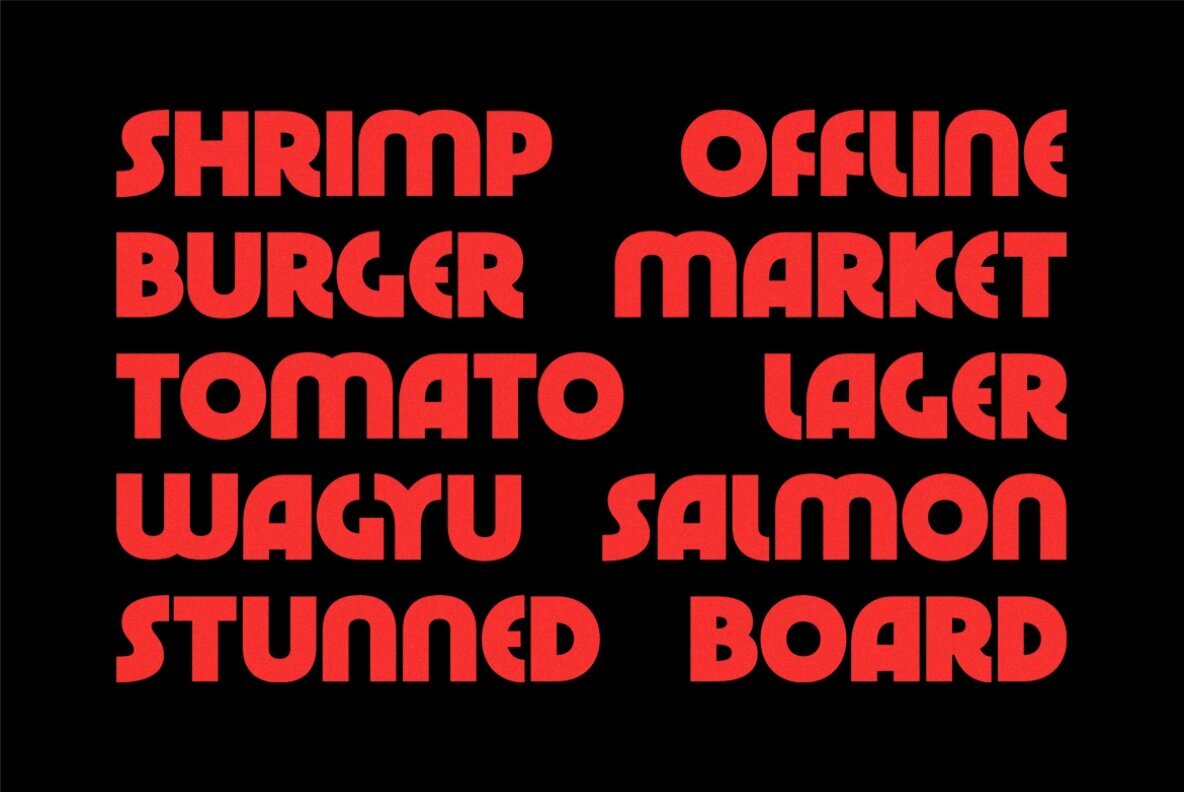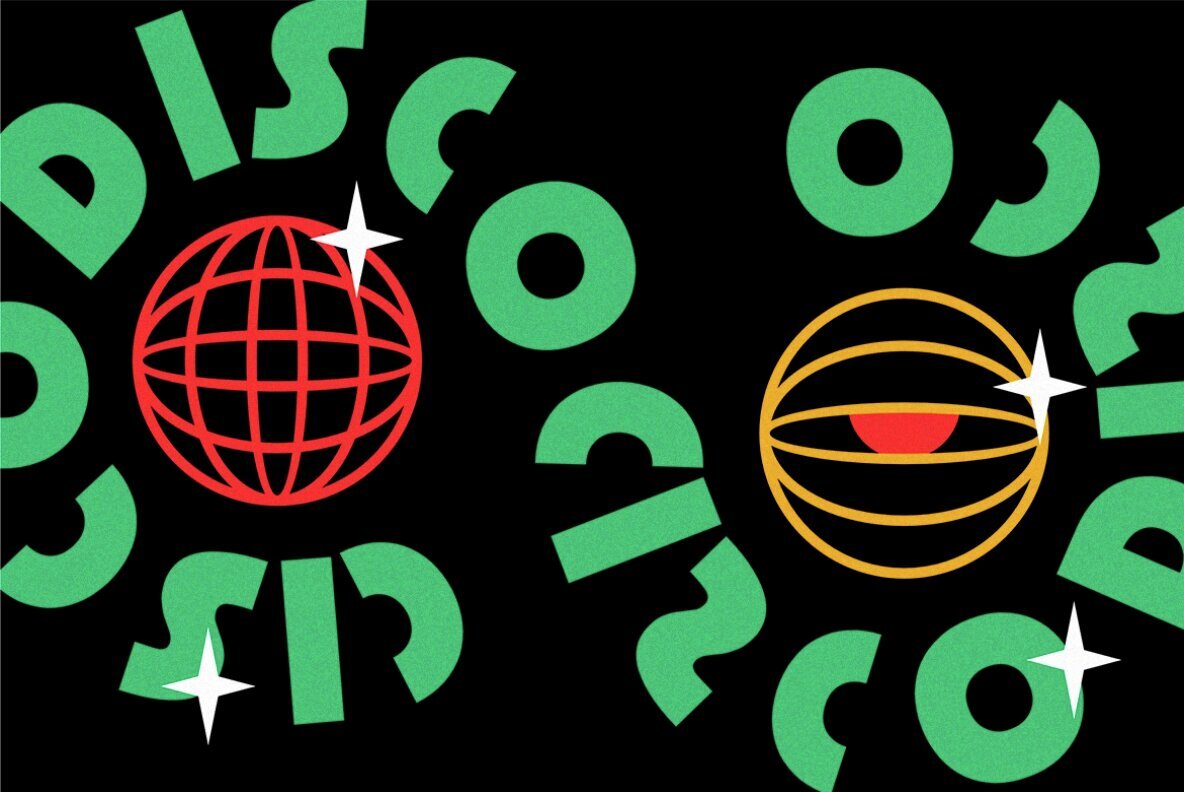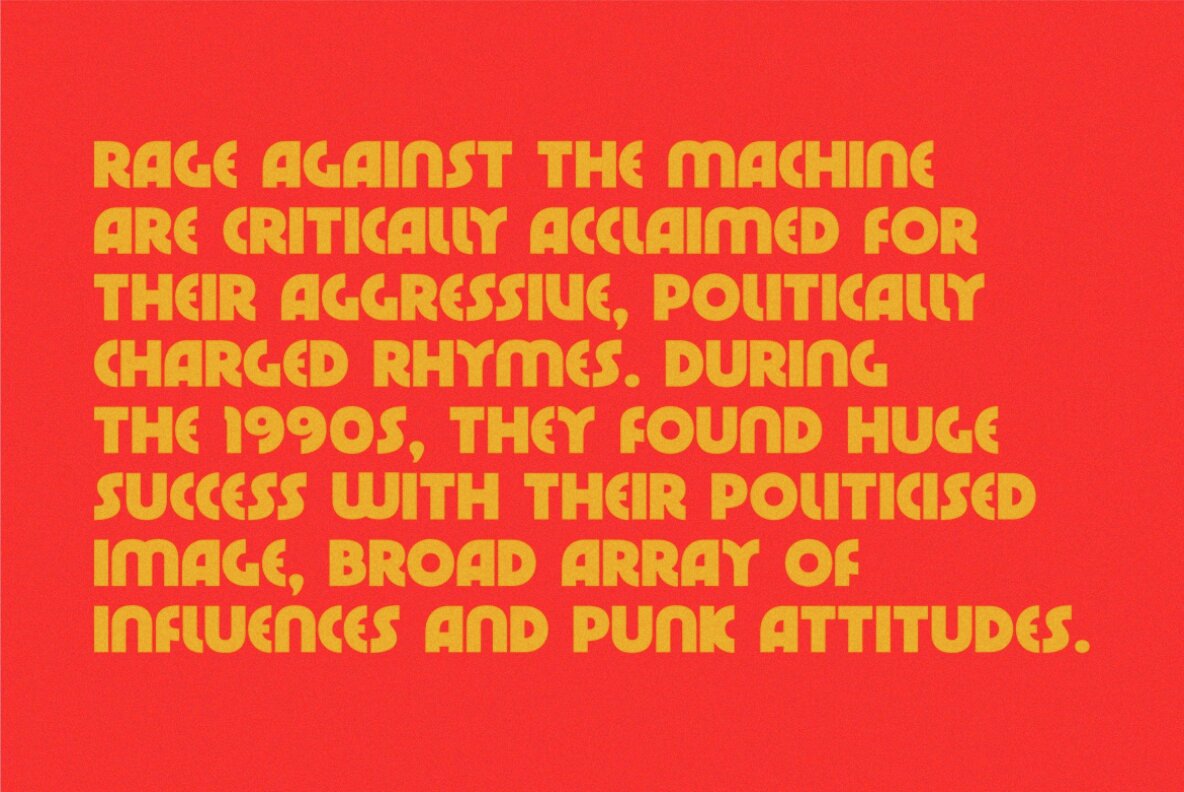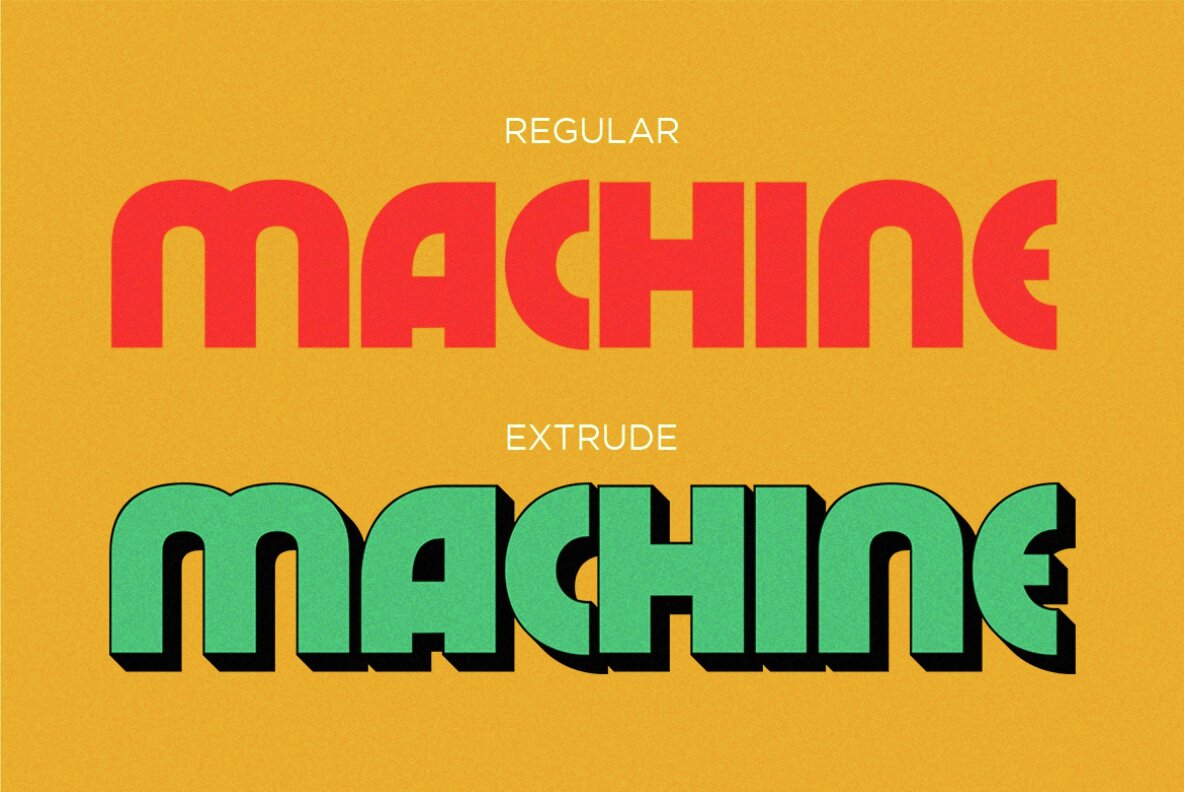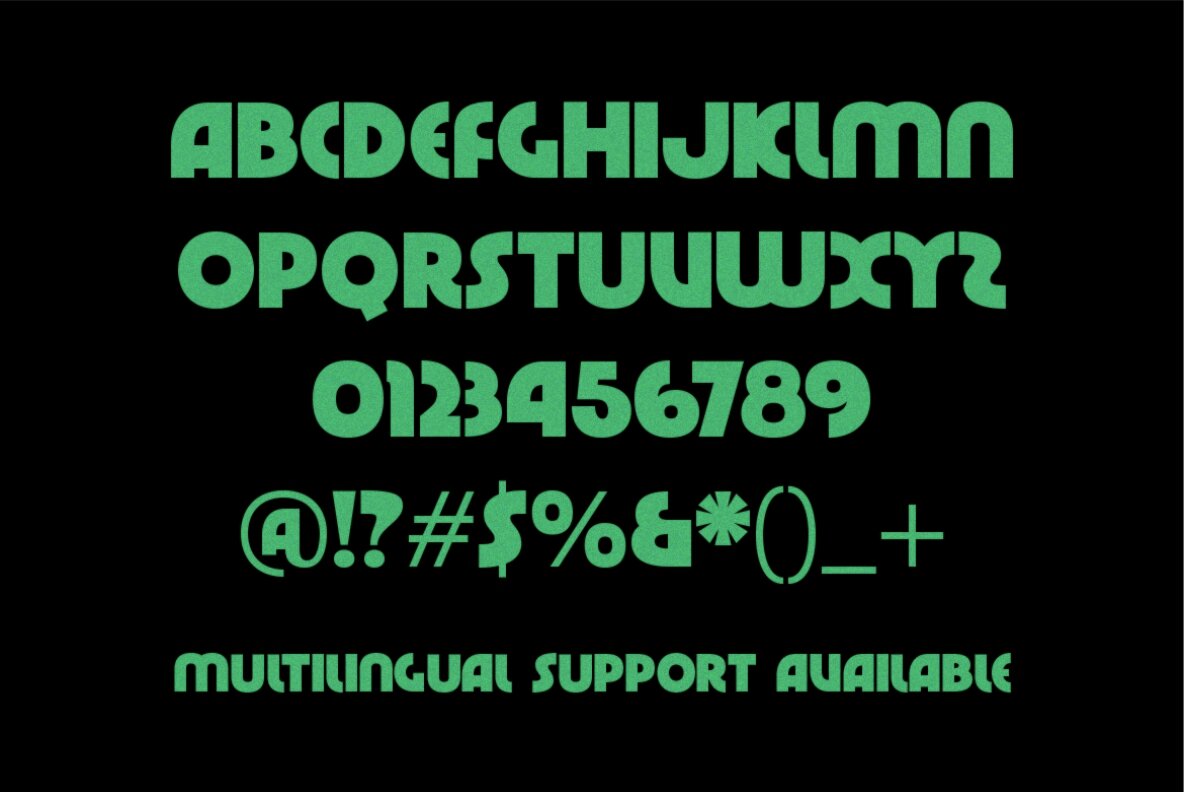
Teenage Garde Font
Teenage Garde is a bold and neat display typeface font that exudes confidence and modernity. With its strong, clean lines and sharp edges, this font is designed to make a bold statement. Teenage Garde boldness gives it a commanding presence, making it ideal for designs that require attention-grabbing headlines or strong brand identities. Despite its simplicity, the font still manages to maintain a sense of elegance and sophistication. This makes Teenage Garde a versatile choice for a wide range of design projects, including advertising materials, logos, posters, and website headers.